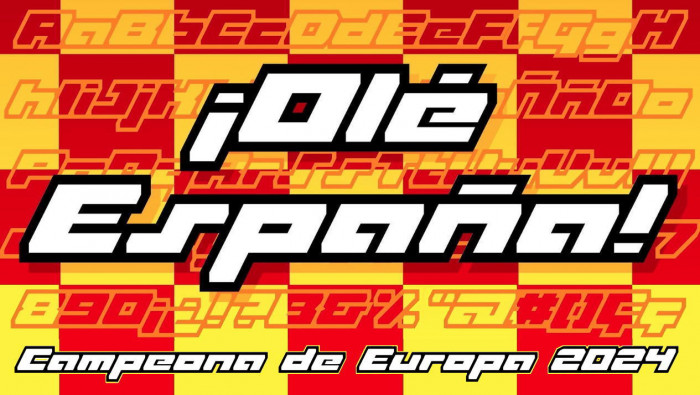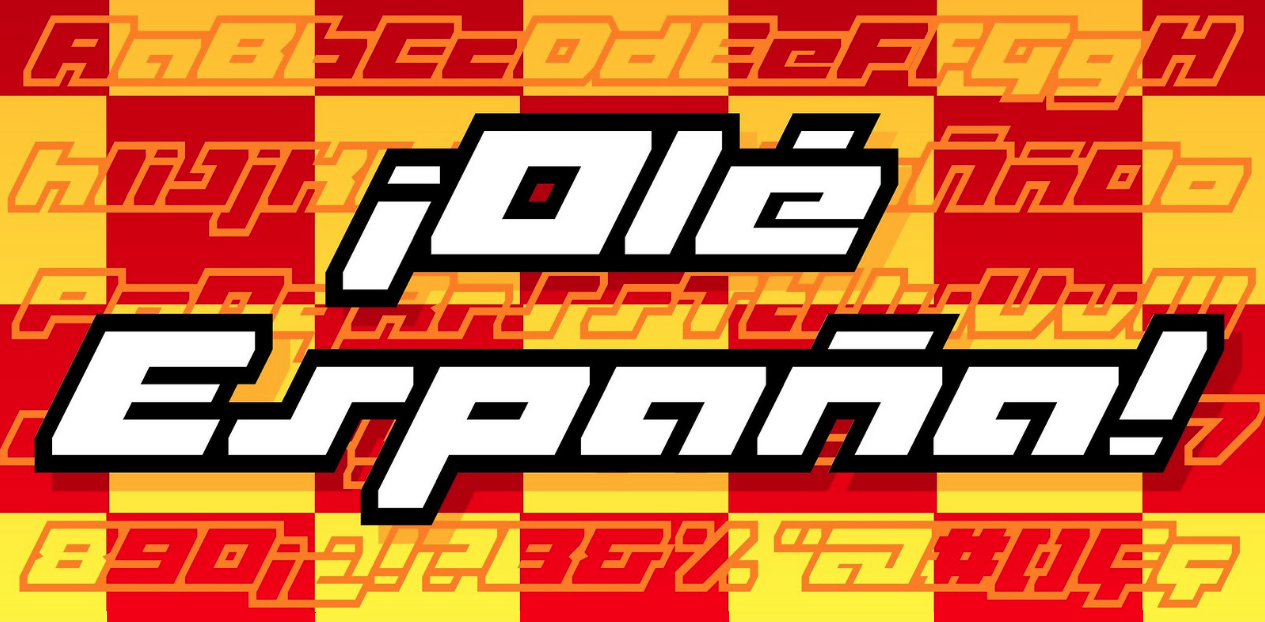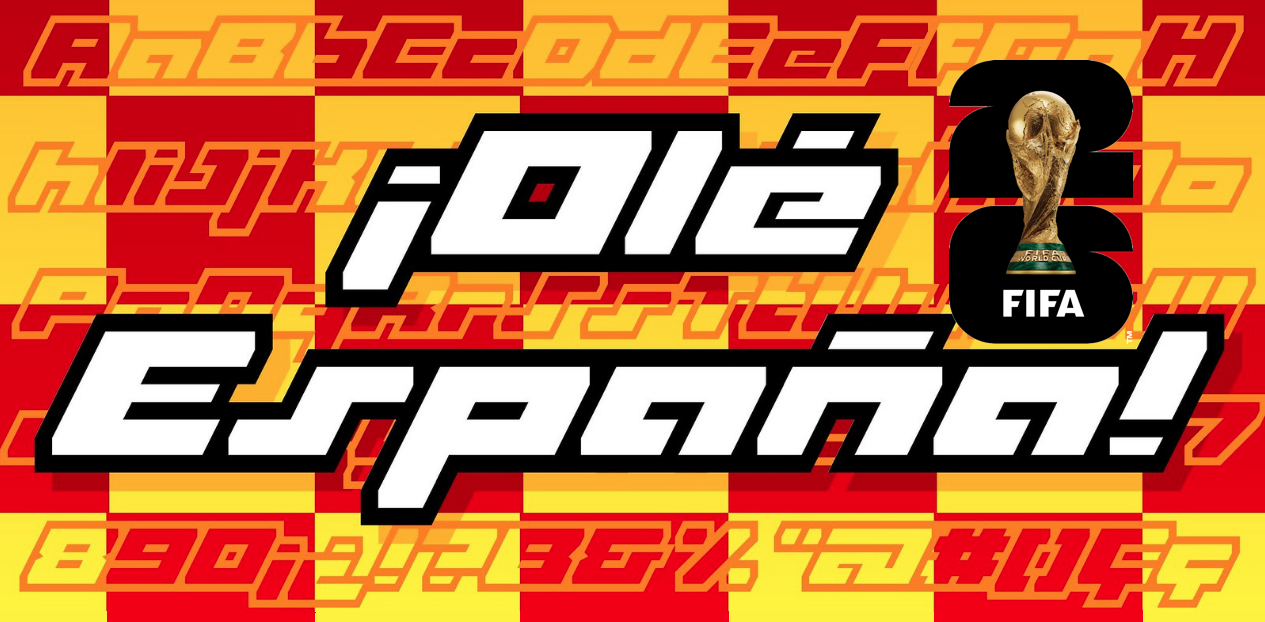
¡Muy Bien!
What a great, confident, clean looking design. I really like this a lot :) 10/10
yo veo que has bien trabajado durante tus vacaciones. Esa me gusta mucho, especialmente en grande dimenciones. 10/10
This is awesome. :-)
nice Slanted.
I love your diatrics, we recognize them in context.
In French, if we take only the E, we use a lot ÉÈÊË... for your design you can probably take the same glyph for all these ÉÈÊ... in context we will understand the word
@Upixel: it is true that I must improve my other accents different from the accents for the Spanish language, is a task that I have to complete. Thank you again for your encouraging interest in my work.
WOW!!!
Nice!!
i like it lolz
well done m8
WOW, very nice font!
Great font. I tried to write Sport or Music. The "S" don't fit to this words. This font reminds me of "The Powerpuff Girls"
Wow!
really like this font- it looks fast! also thanks for the licensing that allows easy use.
WOW! I am loving this font! It really pops out of the screen and comes to life! The samples added to my original excitement, I think it's great that you make a sample for every font! I don't really have the energy to do that kind of sample-making, or the drawing ability to.